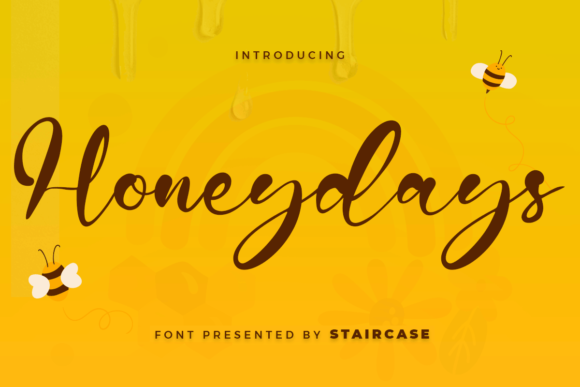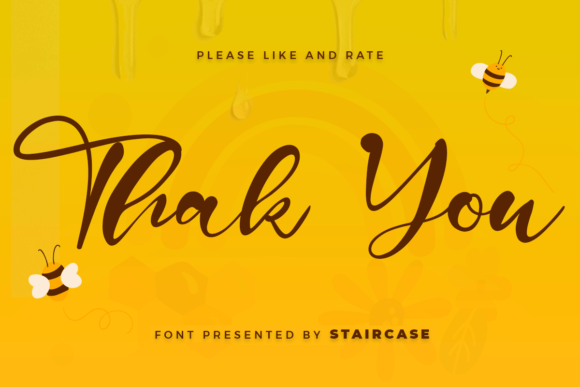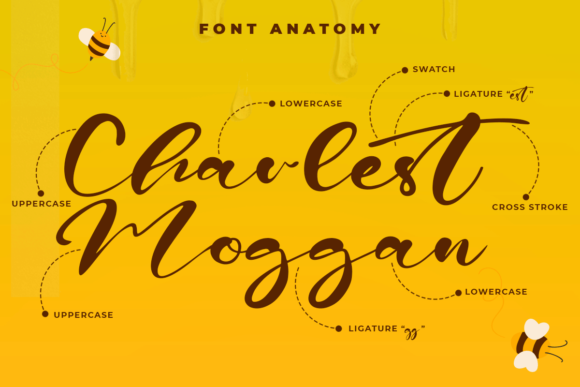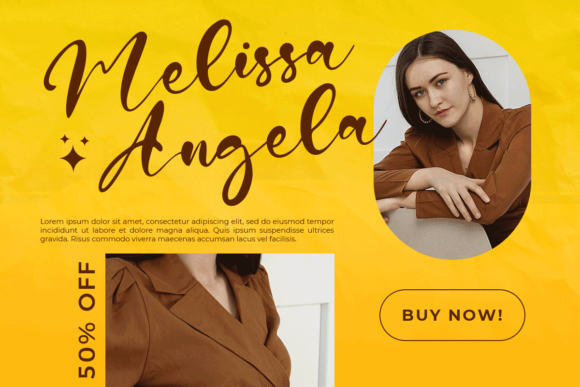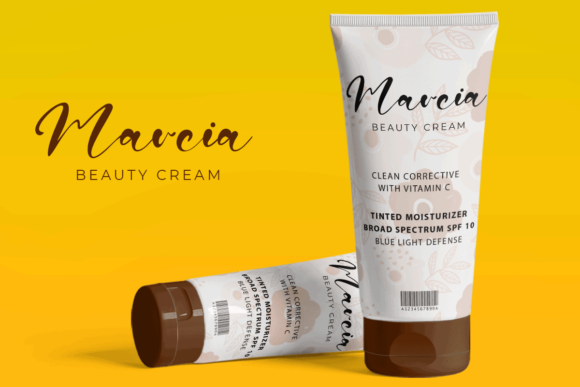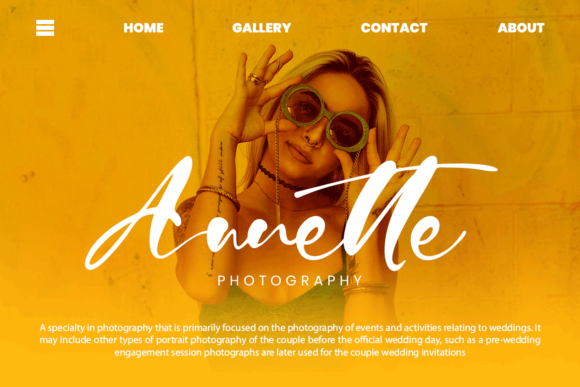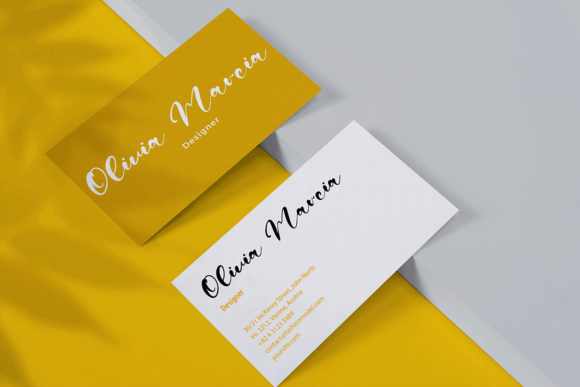
Honeydays Font
About Honeydays Font
Honeydays is a modern script font. A collection of letters and numbers suitable for your projects, and also great for Logotype, Branding Design, Logo Design, Digital Lettering Arts, T-Shirt/Apparel, Poster, Magazine, Signs, Advertising Design, and any design needs.